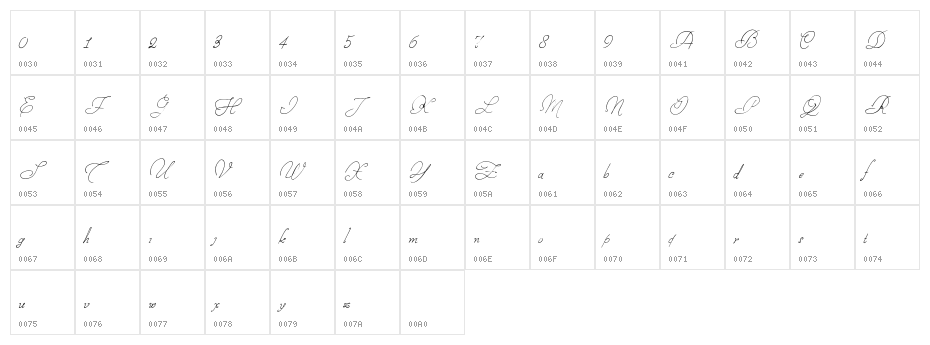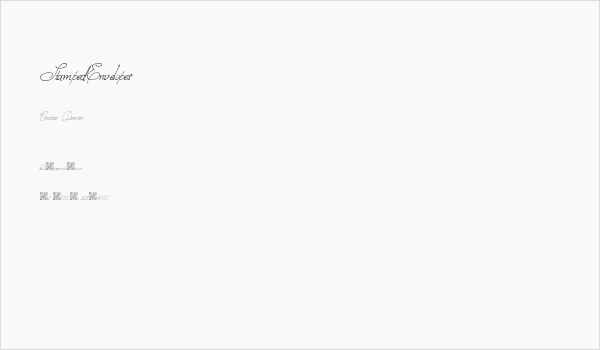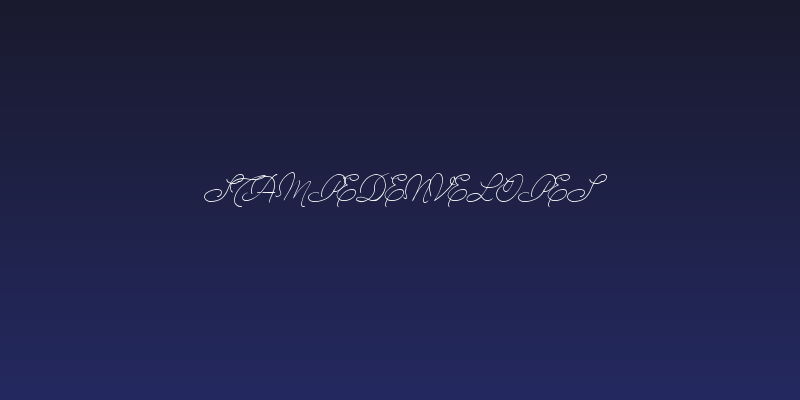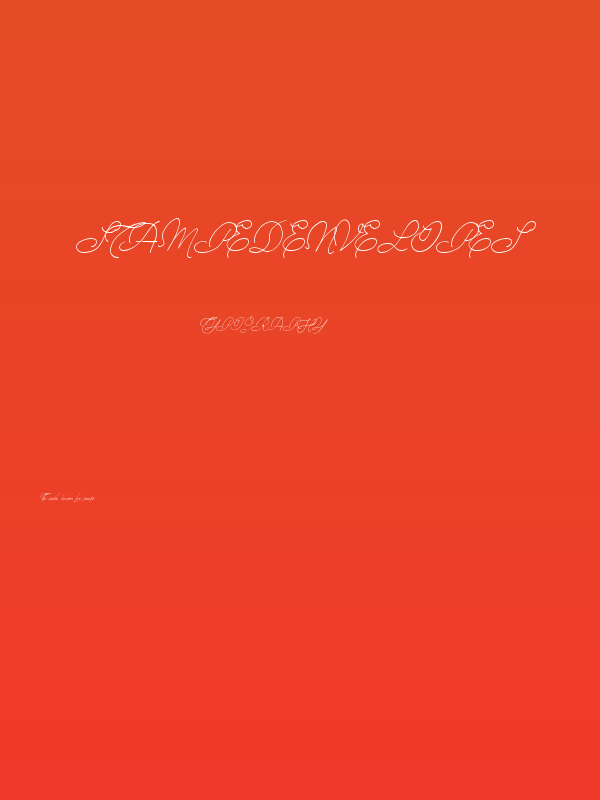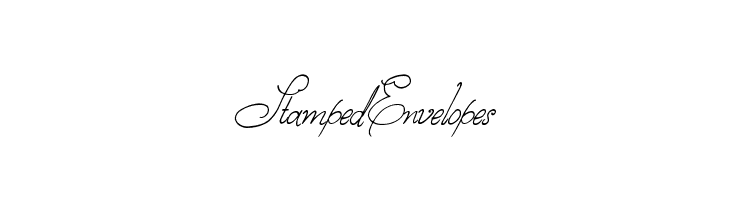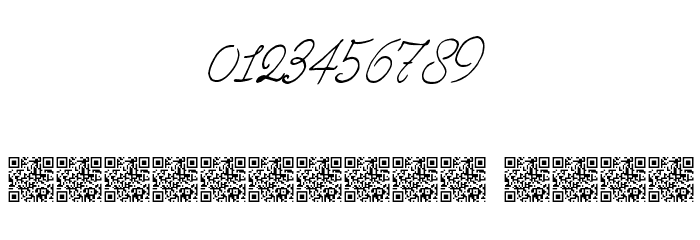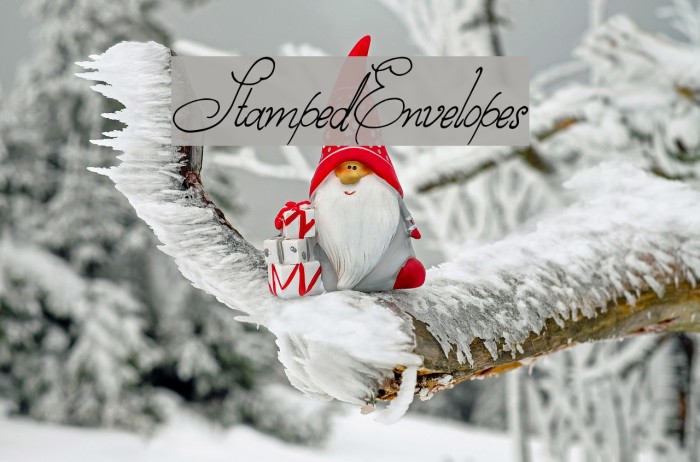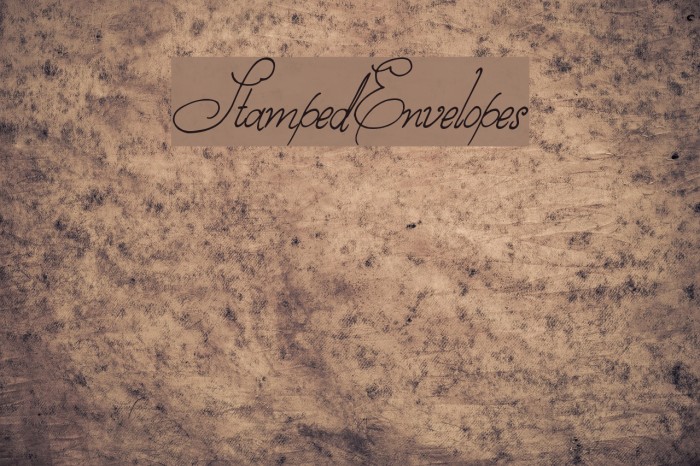
StampedEnvelopes Font
StampedEnvelopes Description
This elegant script font features a flowing, cursive style with intricate loops and flourishes. The uppercase letters are particularly ornate, with sweeping lines that extend beyond the baseline and cap height, creating a sense of movement and grace. The lowercase letters maintain a consistent style, with smooth connections between characters that enhance readability while preserving the decorative nature of the font. The numerals are designed to match the overall aesthetic, featuring similar curves and embellishments. This font is ideal for projects that require a touch of sophistication and elegance, such as wedding invitations, formal event programs, or luxury branding.
| Use Case | Headlines, Invitations, Branding |
| Proposed Projects | Wedding invitations, formal event programs, luxury branding, elegant stationery. |